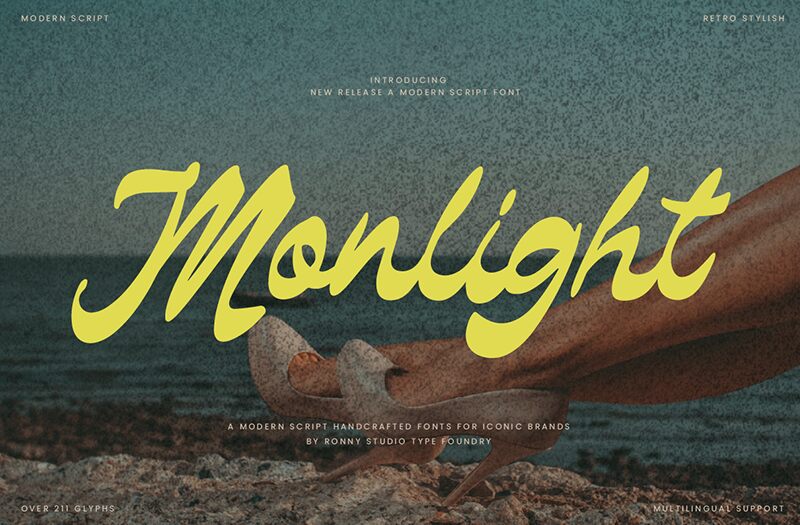
Monlight font by Ronny Studio is a free brush font offering that captures the essence of modern script with an energetic flow. Its lively and expressive handwritten feel exudes both casual elegance and a contemporary flair, making it a versatile choice for a wide array of design projects. With a subtle retro influence and dynamic presence, Monlight is a delightful option for adding personality and charm to your creative works.
Perfectly suited for poster design, stationery, visual content, digital presentations, advertising media, and numerous other forms of creative expression in which the use of such curved engraved fonts would fit in naturally, this resource is guaranteed to make a lovely addition to your toolset.